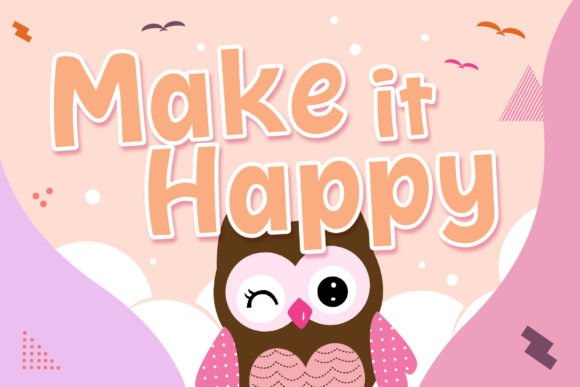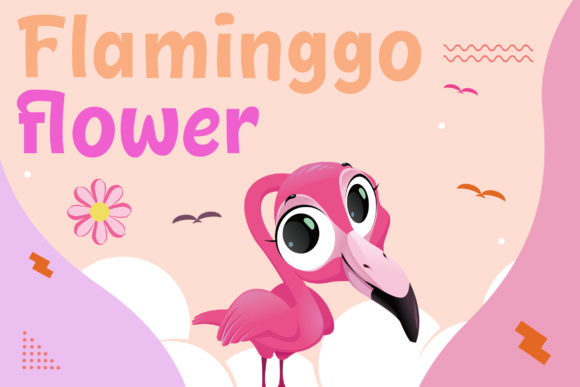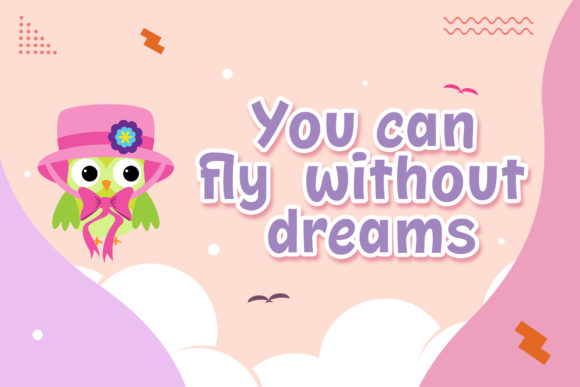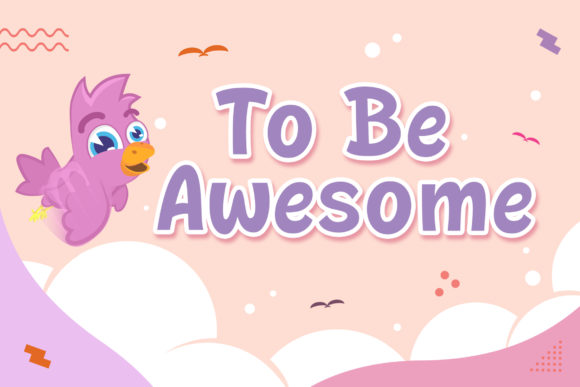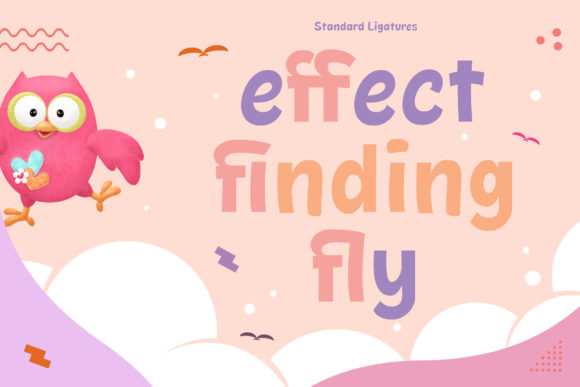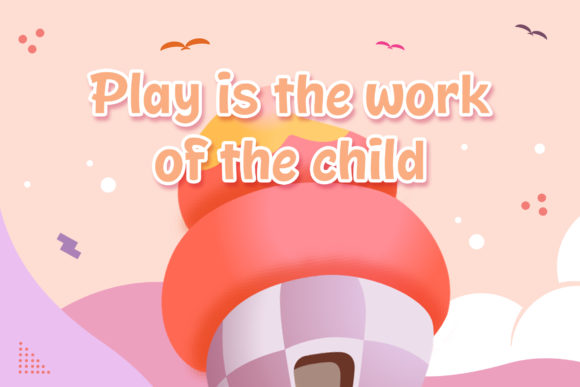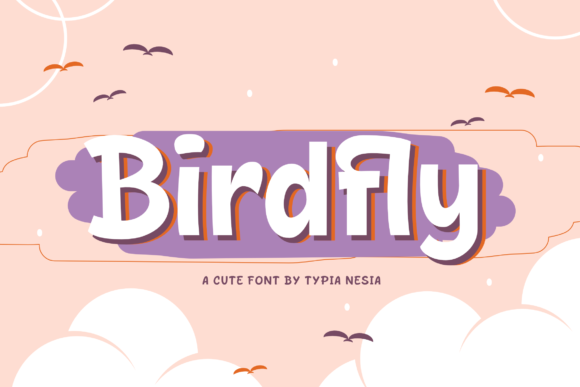
Birdfly Font: Elevate Your Designs with a Bold yet Sweet Display Font
Are you tired of using the same old fonts in your designs? Look no further than Birdfly Font, a bold yet sweet display font that’s sure to make your creative ideas stand out. With its friendly feel and incredible versatility, Birdfly Font is perfect for designers and crafters looking to add a touch of personality to their work.
The Characteristics of Birdfly Font
Birdfly Font is a display font that’s designed to make a statement. Its bold and sweet aesthetic makes it perfect for headlines, titles, and other applications where you want to grab attention. But what really sets Birdfly Font apart is its friendly feel. Unlike some display fonts that can come across as cold or intimidating, Birdfly Font has a warm and approachable vibe that’s sure to resonate with your audience.
The Versatility of Birdfly Font
One of the things that makes Birdfly Font so special is its incredible versatility. Whether you’re working on a branding project, a marketing campaign, or a personal craft project, Birdfly Font is sure to fit right in. Its friendly feel makes it perfect for projects that require a touch of personality, such as:
- Branding and logos: Use Birdfly Font to create a bold and memorable logo that reflects your brand’s personality.
- Marketing materials: Make your marketing materials stand out with Birdfly Font’s bold and attention-grabbing aesthetic.
- Social media graphics: Use Birdfly Font to create eye-catching social media graphics that are sure to grab attention.
- Craft projects: Add a touch of personality to your craft projects, such as handmade cards, gift tags, and other paper crafts.
Why Designers and Crafters Love Birdfly Font
Designers and crafters alike love Birdfly Font for its unique combination of boldness and sweetness. Here are just a few reasons why:
- Easy to read: Despite its bold aesthetic, Birdfly Font is incredibly easy to read, making it perfect for projects where you need to communicate a message clearly.
- Highly versatile: Birdfly Font can be used in a wide range of contexts, from formal and professional to informal and playful.
- Unique and memorable: Birdfly Font’s unique aesthetic makes it sure to stand out in a crowd, helping you to create designs that are truly memorable.
How to Use Birdfly Font in Your Designs
Using Birdfly Font in your designs is easy. Here are a few tips to get you started:
- Experiment with different sizes: Birdfly Font looks great in a variety of sizes, from large headlines to smaller body text.
- Play with color: Birdfly Font looks great in a wide range of colors, so don’t be afraid to experiment and find the perfect hue for your project.
- Pair it with other fonts: Birdfly Font pairs well with a variety of other fonts, so feel free to get creative and find the perfect combination for your project.
In conclusion, Birdfly Font is a bold yet sweet display font that’s sure to elevate your designs and make them stand out. With its friendly feel and incredible versatility, Birdfly Font is perfect for designers and crafters looking to add a touch of personality to their work. Whether you’re working on a branding project, a marketing campaign, or a personal craft project, Birdfly Font is sure to fit right in. So why wait? Add Birdfly Font to your creative toolkit today and see the difference it can make!